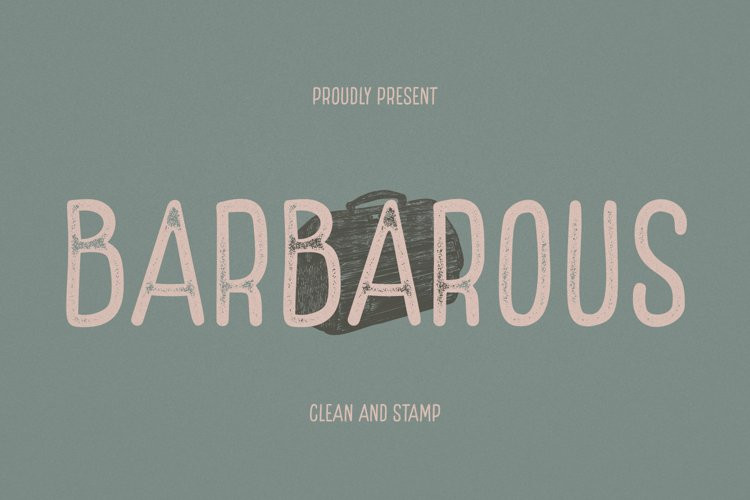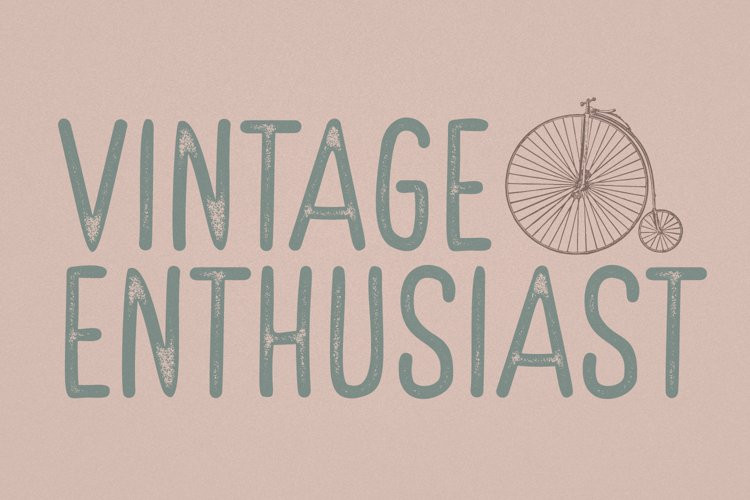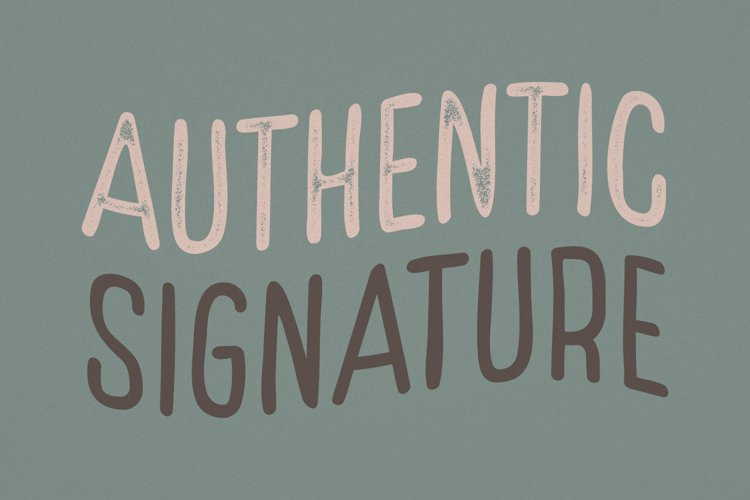
Barbarous Font
Barbarous FontBarbarous two style clean and stamp vintage retro font. This font is PUA encoded which means you can access all the glyphs and sweeps easily